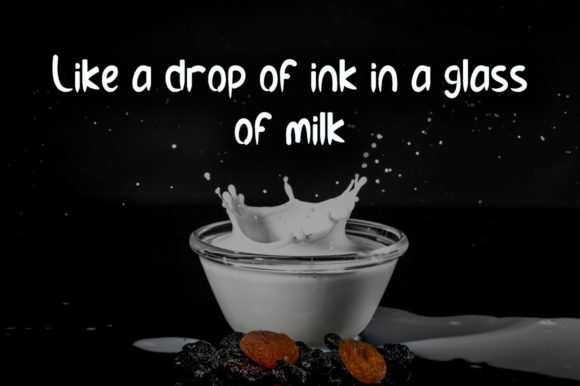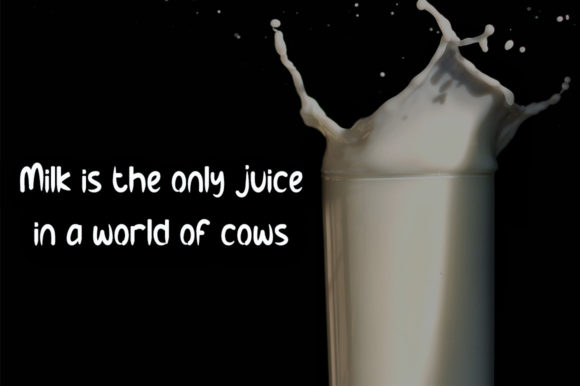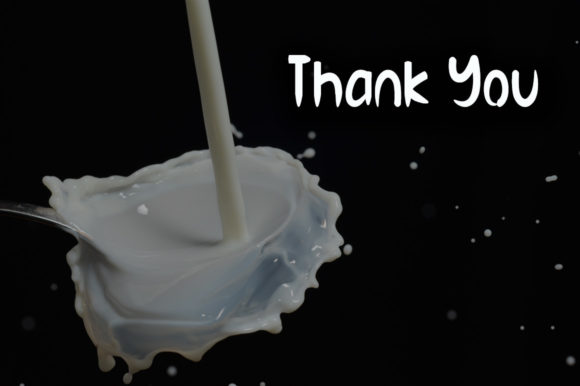
Cow Milk Font: The Creamy Choice for Designers and Crafters
Are you tired of using the same old fonts for your designs and crafts? Look no further than Cow Milk Font, a cool and natural display font that’s perfect for adding a touch of trendiness to your projects. In this article, we’ll dive into the features and benefits of Cow Milk Font, and explore how it can elevate your designs and crafts to the next level.
What is Cow Milk Font?
Cow Milk Font is a modern display font that’s inspired by the simplicity and elegance of handwritten typography. With its unique and stylish design, it’s perfect for a wide range of applications, from digital designing and presentations to crafting and greeting cards making.
Key Features of Cow Milk Font
- Cool and Natural Design: Cow Milk Font features a cool and natural design that’s perfect for creating modern and trendy designs.
- Perfect Amount of Trendiness: This font has just the right amount of trendiness to make your designs stand out from the crowd.
- Versatile: Cow Milk Font is perfect for a wide range of applications, from digital designing and presentations to crafting and greeting cards making.
- Easy to Read: Despite its trendy design, Cow Milk Font is easy to read, making it perfect for use in body text as well as headlines.
Benefits of Using Cow Milk Font
So why should you choose Cow Milk Font for your next design or craft project? Here are just a few benefits of using this amazing font:
- Adds a Touch of Personality: Cow Milk Font adds a touch of personality to your designs and crafts, setting them apart from the usual generic fonts.
- Perfect for Branding: With its unique and stylish design, Cow Milk Font is perfect for use in branding and advertising materials.
- Enhances Creativity: The versatility of Cow Milk Font makes it perfect for use in a wide range of creative projects, from digital art to handmade crafts.
Using Cow Milk Font in Your Designs and Crafts
So how can you use Cow Milk Font in your designs and crafts? Here are a few ideas to get you started:
- Digital Designing: Use Cow Milk Font in your digital designs, such as social media graphics, blog posts, and email newsletters.
- Presentations: Add a touch of style to your presentations with Cow Milk Font, perfect for use in titles, headings, and bullet points.
- Crafting: Use Cow Milk Font in your handmade crafts, such as scrapbooking, card making, and journaling.
- Greeting Cards Making: Create beautiful and unique greeting cards with Cow Milk Font, perfect for special occasions such as birthdays, weddings, and holidays.
Tips and Tricks for Using Cow Milk Font
Here are a few tips and tricks for getting the most out of Cow Milk Font:
- Experiment with Different Sizes: Cow Milk Font looks great in a variety of sizes, from large headings to smaller body text.
- Pair with Other Fonts: Try pairing Cow Milk Font with other fonts to create a unique and stylish design.
- Use in Combination with Images: Use Cow Milk Font in combination with images to create a visually appealing design.
| Font Name | Cow Milk Font |
| Author | morningtimestudio |
In conclusion, Cow Milk Font is a cool and natural display font that’s perfect for designers and crafters looking to add a touch of trendiness to their projects. With its versatile design and wide range of applications, it’s the perfect choice for anyone looking to elevate their designs and crafts to the next level. So why not give Cow Milk Font a try today and see the difference it can make?